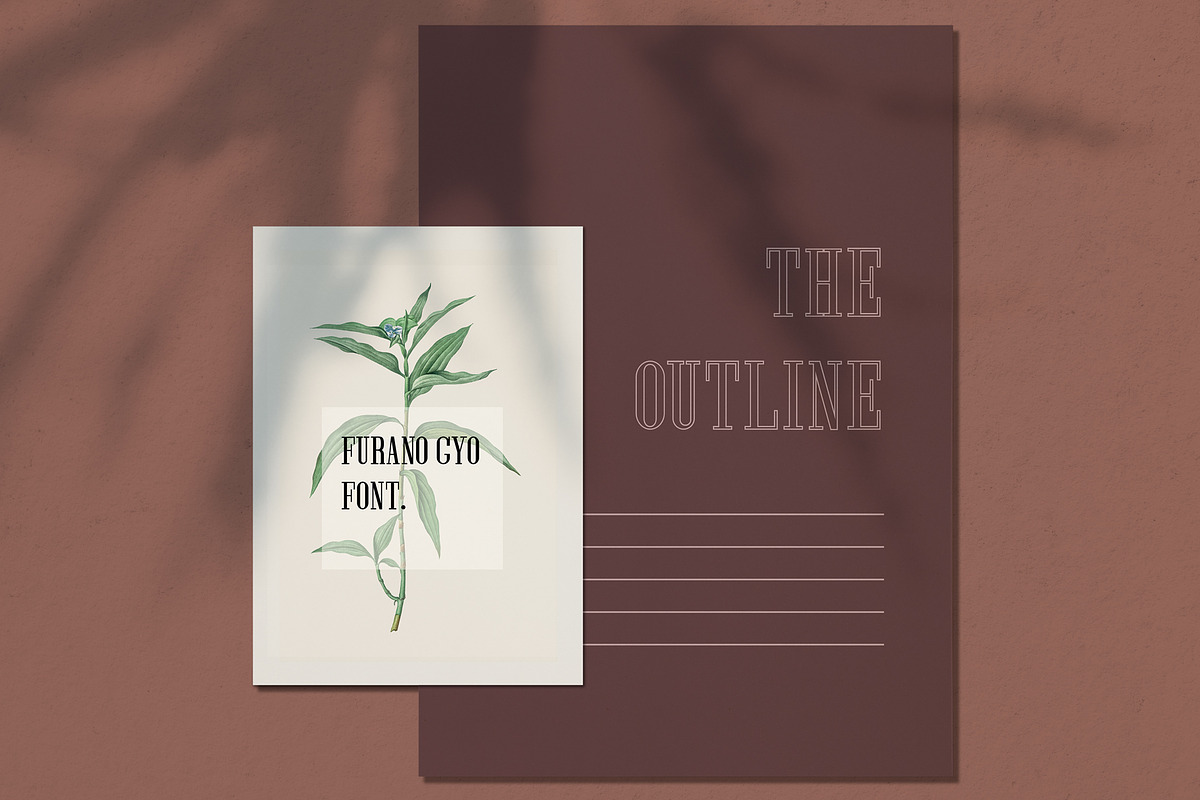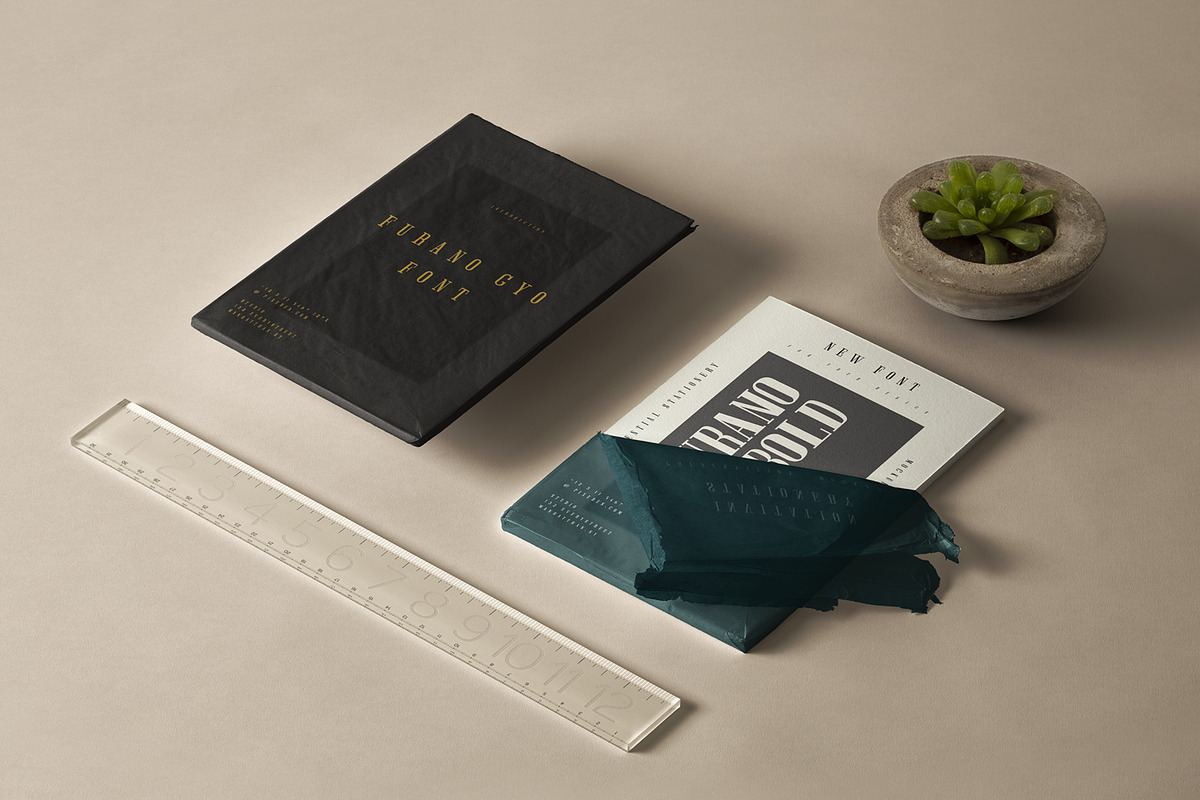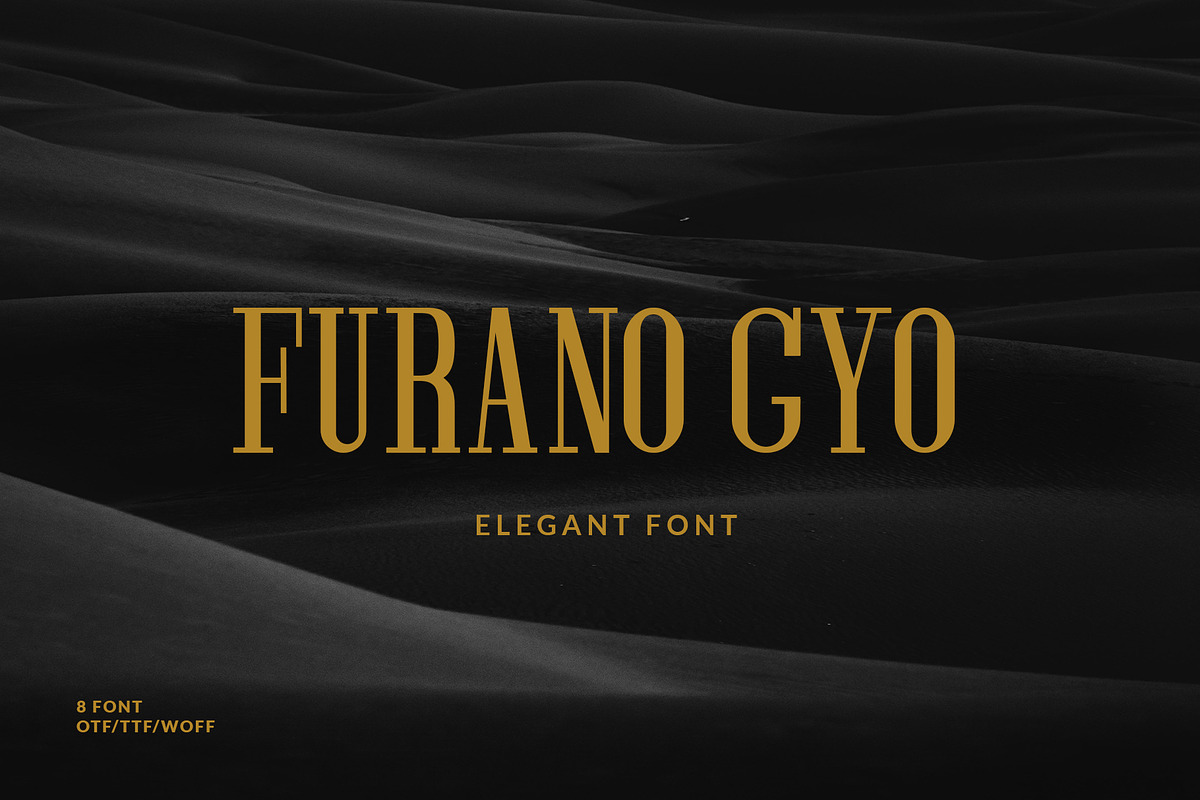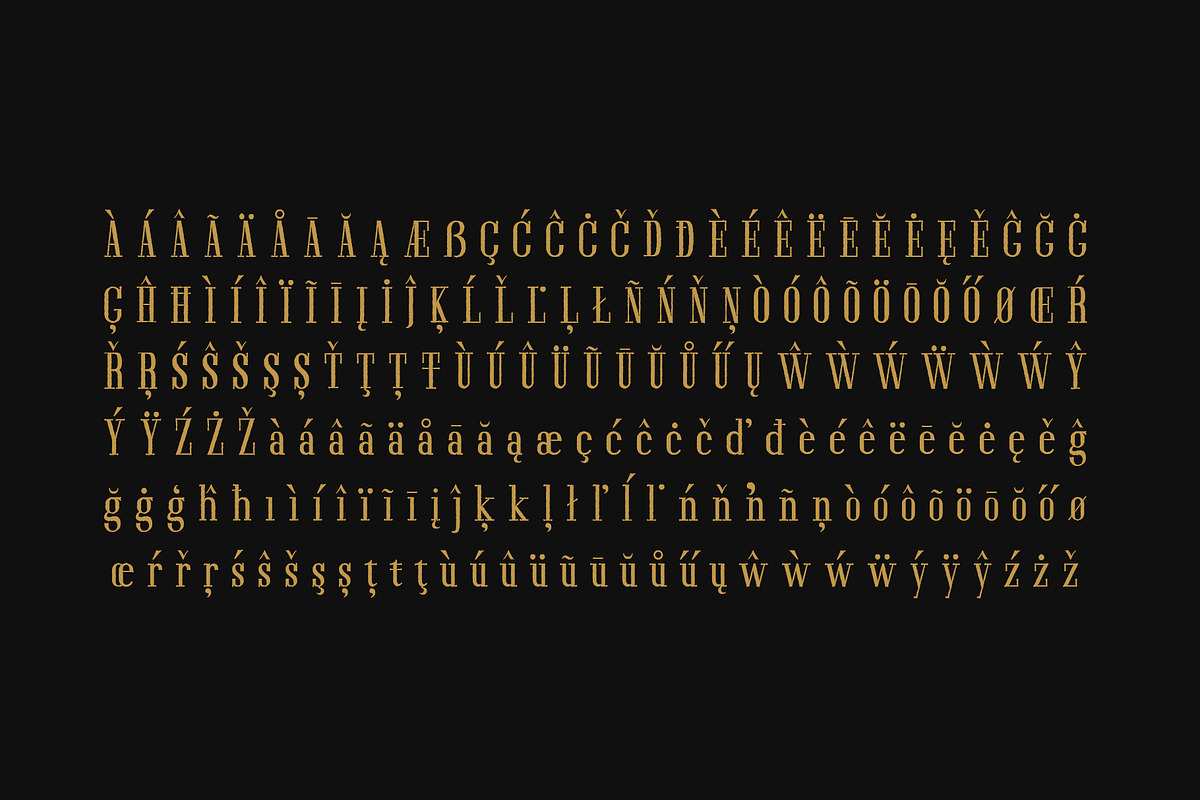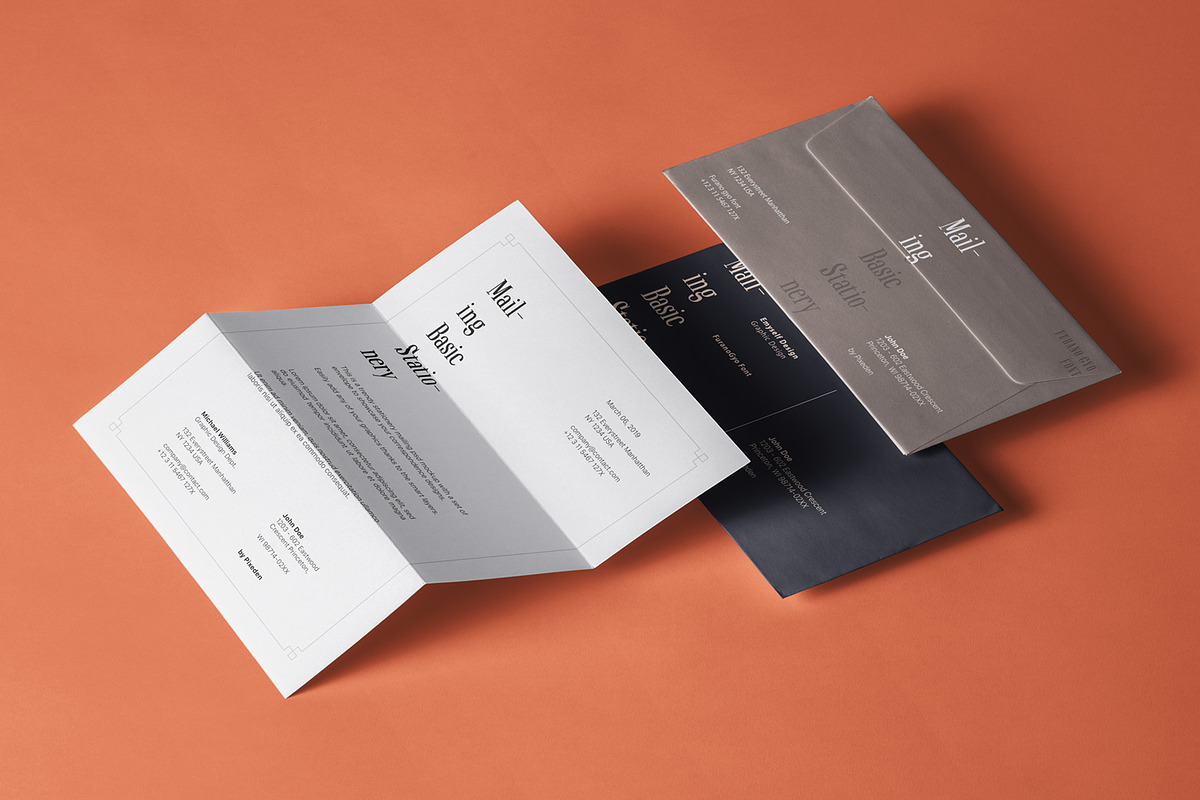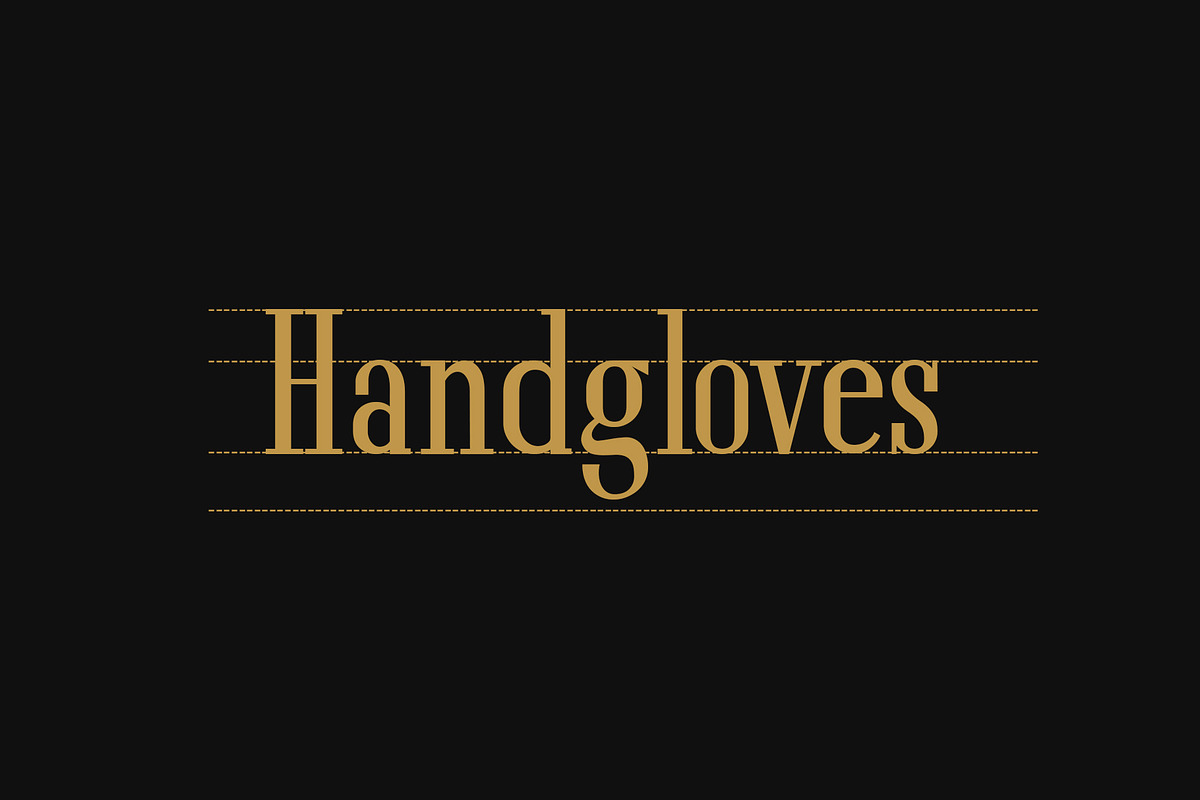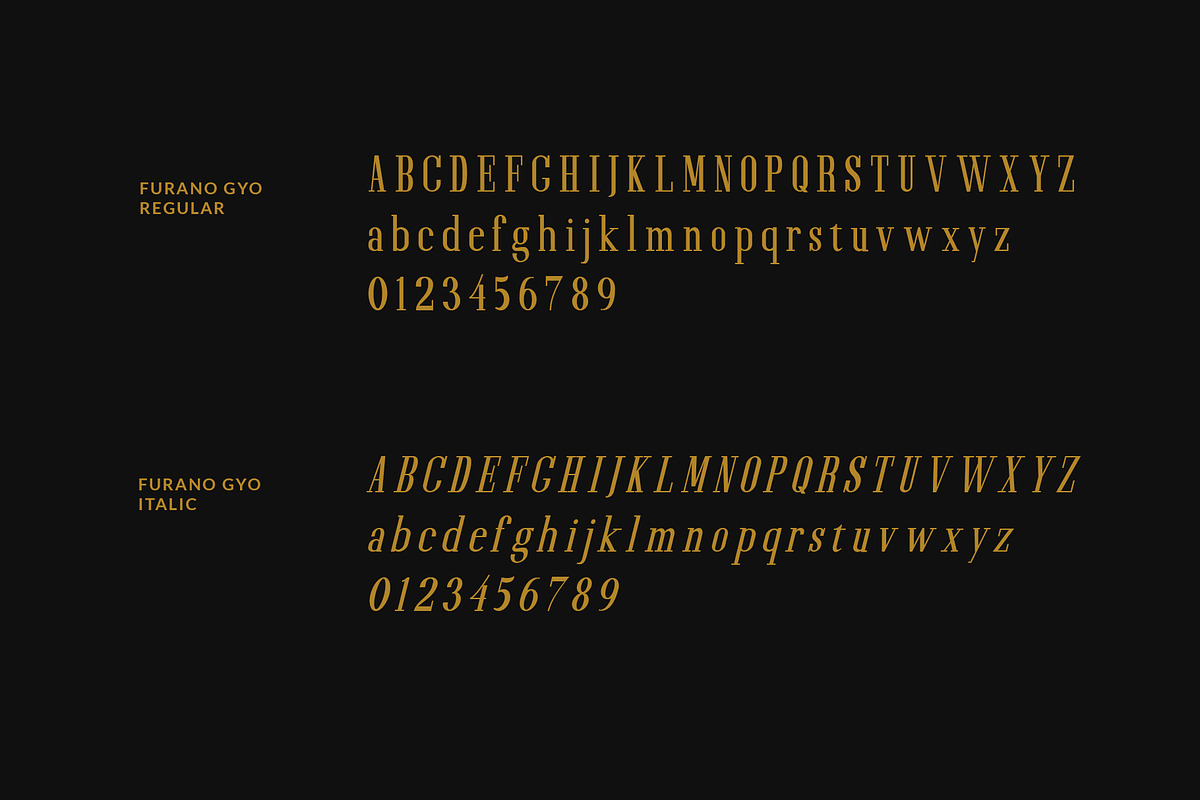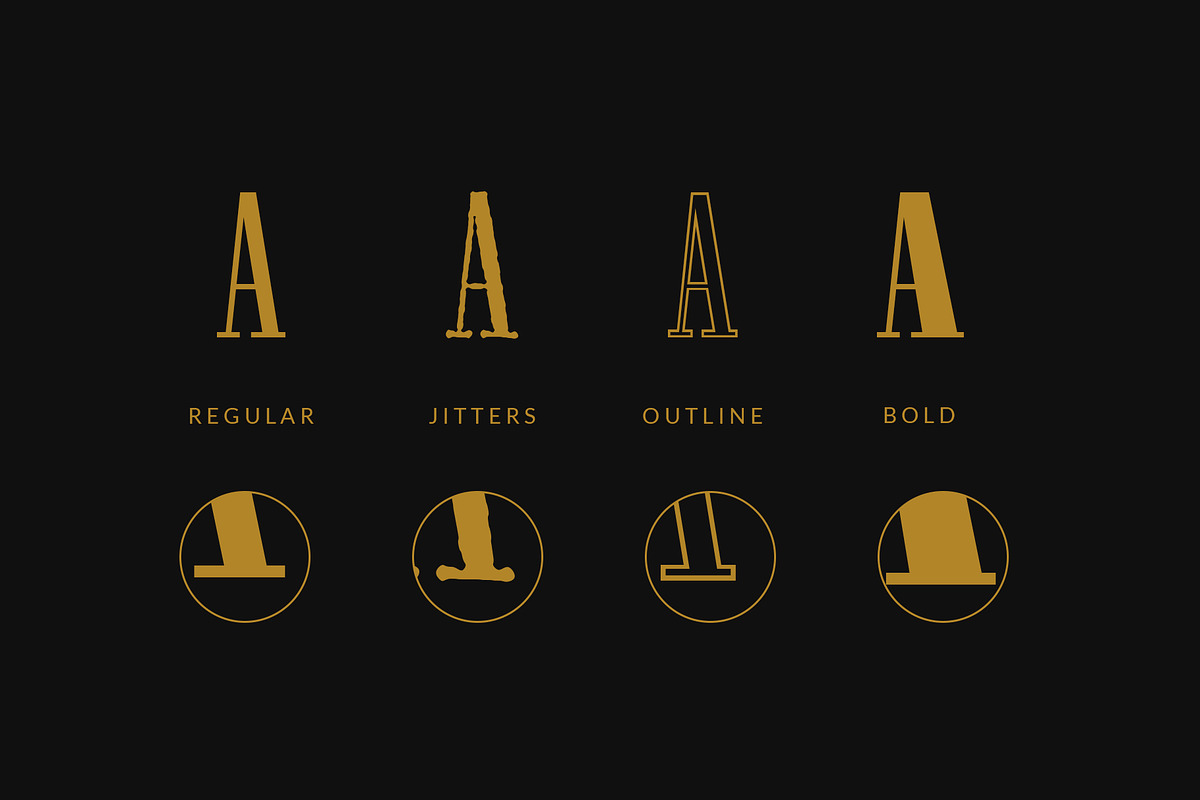
Furano Gyo Font
Furano Gyo font is a serif font that is elegant and simple with a modern vintage style, this font is inspired by a number of font books designed to be used for graphic design needs and others.
This font has 8 styles, namely: regular, italic , bold ,bold italic , jitters , jitters italic , outline and outline italic . which has 390 characters, ligature, and multilanguage support. This font can be used for Branding, Logo design, Posters, Cards, etc .
8 Style font : regular, italic , bold ,bold italic , jitters , jitters italic , outline and outline italic
Multilanguage support
- which has 390 characters, ligature, and multilanguage support.